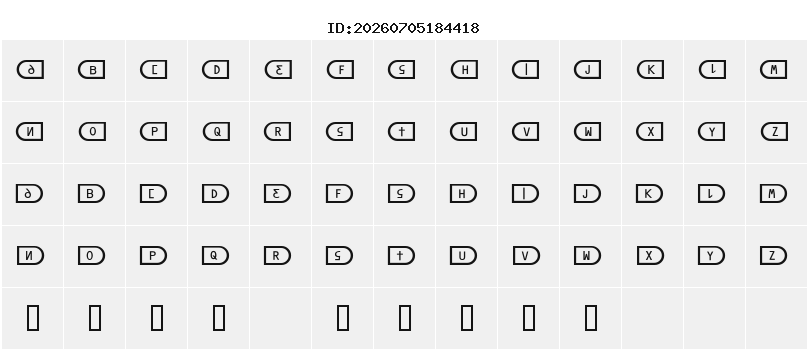
Dna Preview
• Font Name: Dna
• Full Font Name: Dna
• PostScript Name: Dna
• Character Count: 117
About Dna.ttf
Dna.ttf is a modern, elegant sans-serif font designed for ultimate readability and visual harmony. Perfect for branding, headlines, web design, and print materials.